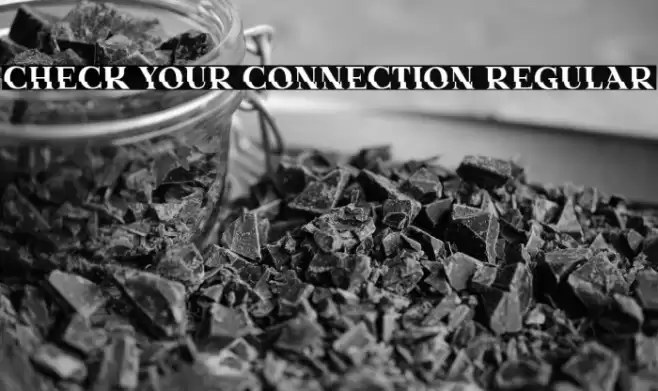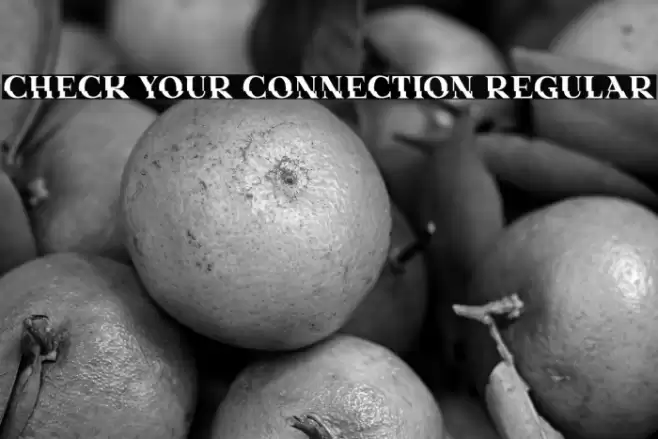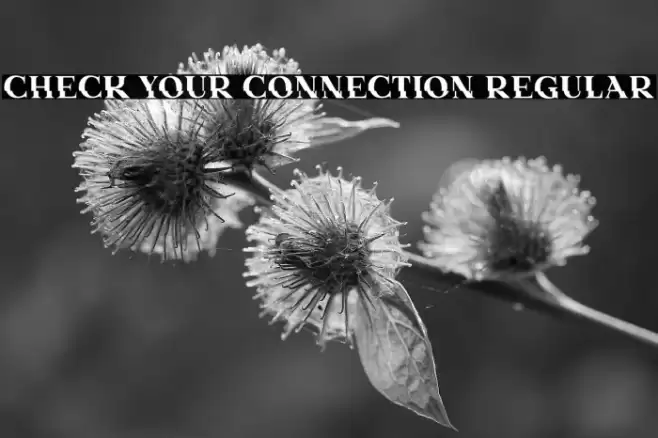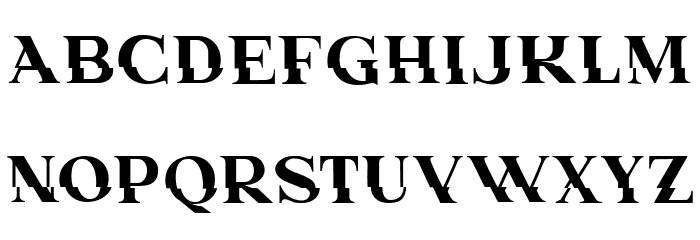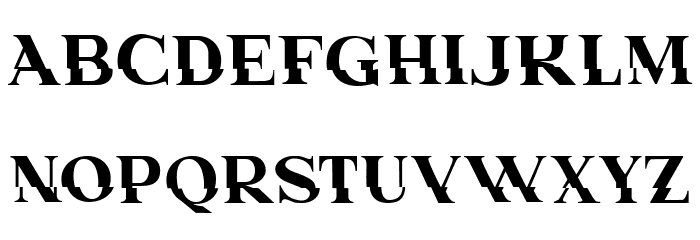
Check Your Connection Regular Font
Check Your Connection Regular Description
This font features a bold and striking design with a unique, decorative style. The characters are characterized by sharp, angular serifs and a high contrast between thick and thin strokes. The uppercase letters exhibit a strong presence, making them ideal for attention-grabbing headlines or titles. The overall appearance is both modern and vintage, combining classic serif elements with a contemporary twist. The font's distinct style makes it suitable for projects that require a bold statement, such as branding, posters, or editorial design.
A bold, decorative serif font with high contrast and angular serifs from Distorted Eroded fonts.
- Proposed Projects: Ideal for branding, posters, editorial design, and any project requiring a bold, attention-grabbing typeface.
- Overall Style: Modern, Vintage